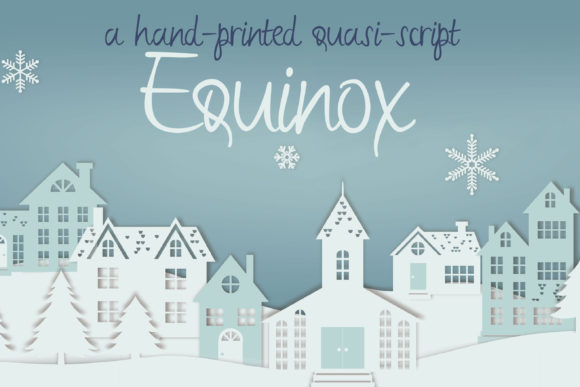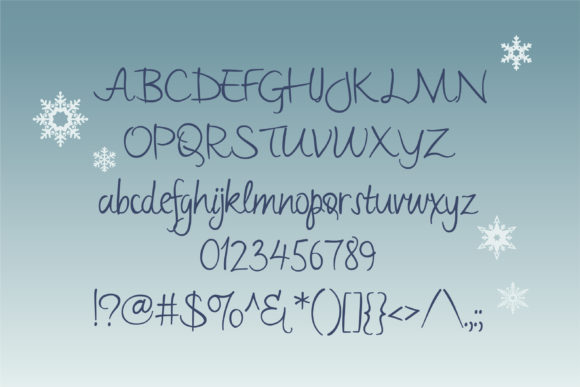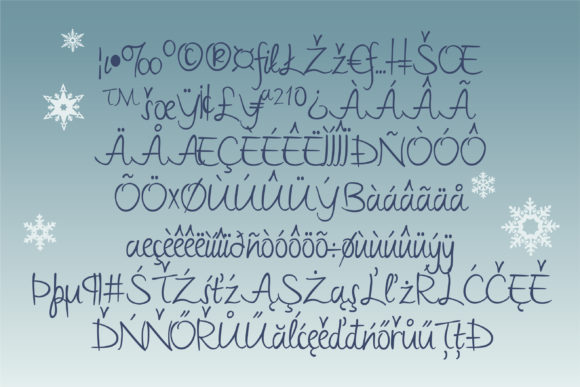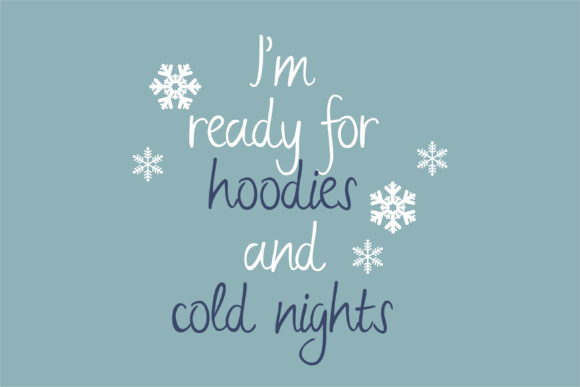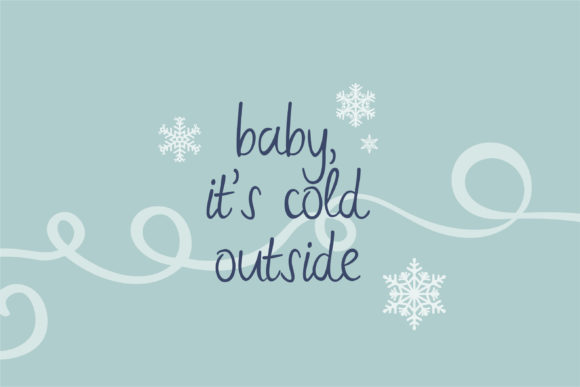
HomeScript FontsEquinox Font Script Fonts Equinox Font FacebookXPinterestWhatsApp Equinox Font Poster 2 Equinox Font Poster 3 Equinox Font Poster 4 Equinox Font Poster 5 About Equinox Font This casual hand-crafted light-weight script, has a simplistic and easy-going feel. DOWNLOAD NOW People also explored Sweet Dream Font Paullina Font Small Font Latso Font Sometimes Font Ogowey Font Thridace Regular Tiamoran Font Star Cheer Font 272 0 TagsEquinox Font Previous articleBlondie FontNext articleMausoleum Font LEAVE A REPLY Cancel reply Comment: Please enter your comment! Name:* Please enter your name here Email:* You have entered an incorrect email address! Please enter your email address here Website: Save my name, email, and website in this browser for the next time I comment. Personal Use Free Special Day Personal Use Free Read more about this font Sweet Beautiful Personal Use Free Read more about this font Cranberry Gin Personal Use Free Read more about this font Shelly Personal Use Free Read more about this font BLOG Best Fonts for T-Shirt Design – Top 2025 Picks In 2025, t-shirt design has become more than just fashion—it's a form of self-expression. Whether you're... To increase your work productivity, choose the most readable fonts. Best Fonts for YouTube Videos: Make Your Thumbnails Stand Out Free vs Paid Fonts: Why Investing in Premium Fonts Is Worth It